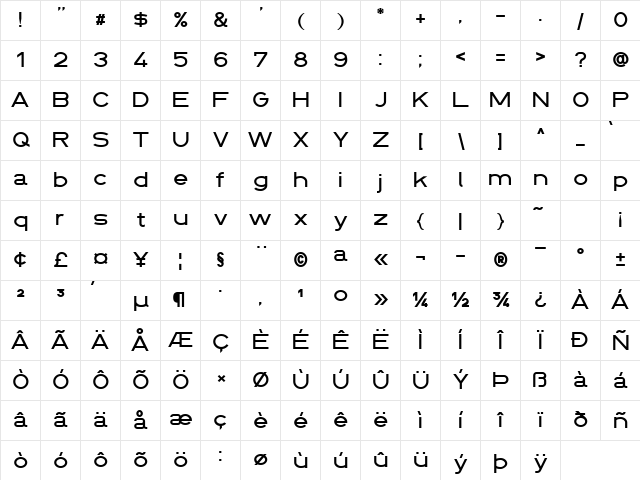
DIN 1451 fette Breitschrift 1936 Regular Free Font
DIN 1451 fette Breitschrift 1936 Regular
Design Context for DIN 1451 fette Breitschrift 1936
DIN 1451 fette Breitschrift 1936 is a composed and adaptable typeface that performs quietly and consistently across a wide range of design contexts.